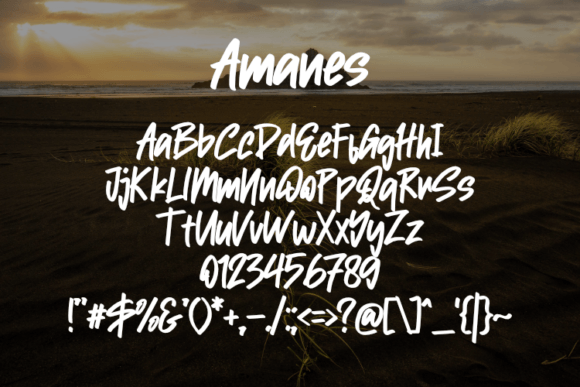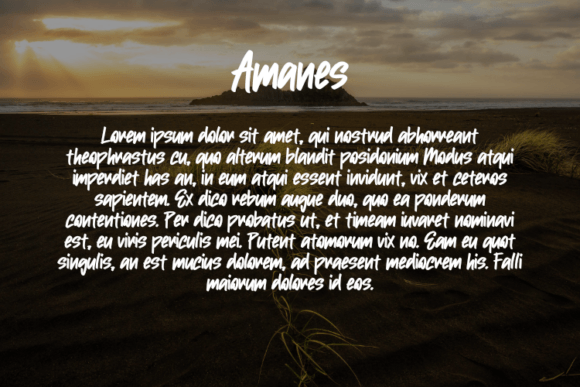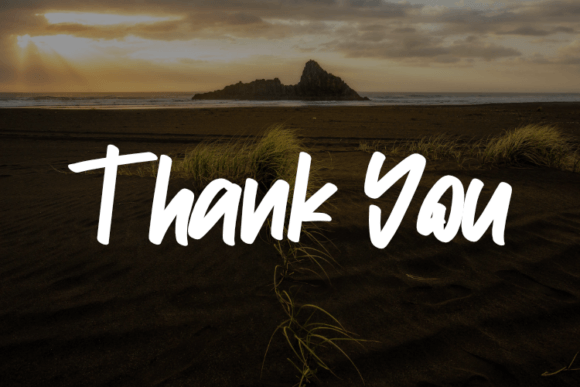
Unlock Endless Design Possibilities with Amanes Font
Are you tired of using the same old fonts in your clothing and merchandise designs? Do you want to take your creations to the next level and make them truly unforgettable? Look no further than the Amanes font, the perfect addition to your design toolkit. This versatile typeface is designed to bring your designs to life, offering a unique and stylish touch that will set your work apart from the rest.
Seamless Integration into Any Design Scheme
One of the standout features of the Amanes font is its incredible versatility. Whether you’re working on a bold t-shirt design or a chic fashion piece, this font fits flawlessly into any design scheme. Its unique stylings are adaptable to a wide range of design aspirations, making it the perfect choice for designers and crafters who want to push the boundaries of their creativity.
Bring Your Designs to Life
The Amanes font is more than just a typeface – it’s a design element that can transform your creations and make them truly special. With its unique stylings and adaptable nature, this font can be used to add a touch of personality to any design. Whether you’re looking to create bold and eye-catching designs or more subtle and sophisticated ones, the Amanes font is up to the task.
The Amanes font is a must-have for any designer or crafter looking to elevate their work. Whether you’re a professional graphic designer or a DIY enthusiast, this font offers endless possibilities for creative expression. With the Amanes font in your toolkit, you’ll be able to create stunning designs that will leave a lasting impression on your audience.
Key Features of Amanes Font
- Versatile design: The Amanes font features a unique and stylish design that fits flawlessly into any design scheme.
- Adaptable: The Amanes font can be used in a wide range of design applications, from bold t-shirts to chic fashion pieces.
If you’re ready to take your designs to the next level and make them truly unforgettable, then the Amanes font is the perfect choice for you. With its unique stylings, adaptable nature, and software compatibility, this font is sure to become a staple in your design toolkit. So why wait? Download the Amanes font today and experience the transformation in your designs.
In conclusion, the Amanes font is a game-changer for designers and crafters who want to elevate their work and create truly unforgettable designs. With its versatile design, software compatibility, and adaptable nature, this font offers endless possibilities for creative expression. Whether you’re a professional graphic designer or a DIY enthusiast, the Amanes font is a must-have for any design project. So why wait? Welcome the Amanes font into your design toolkit today and start creating stunning designs that will leave a lasting impression on your audience.